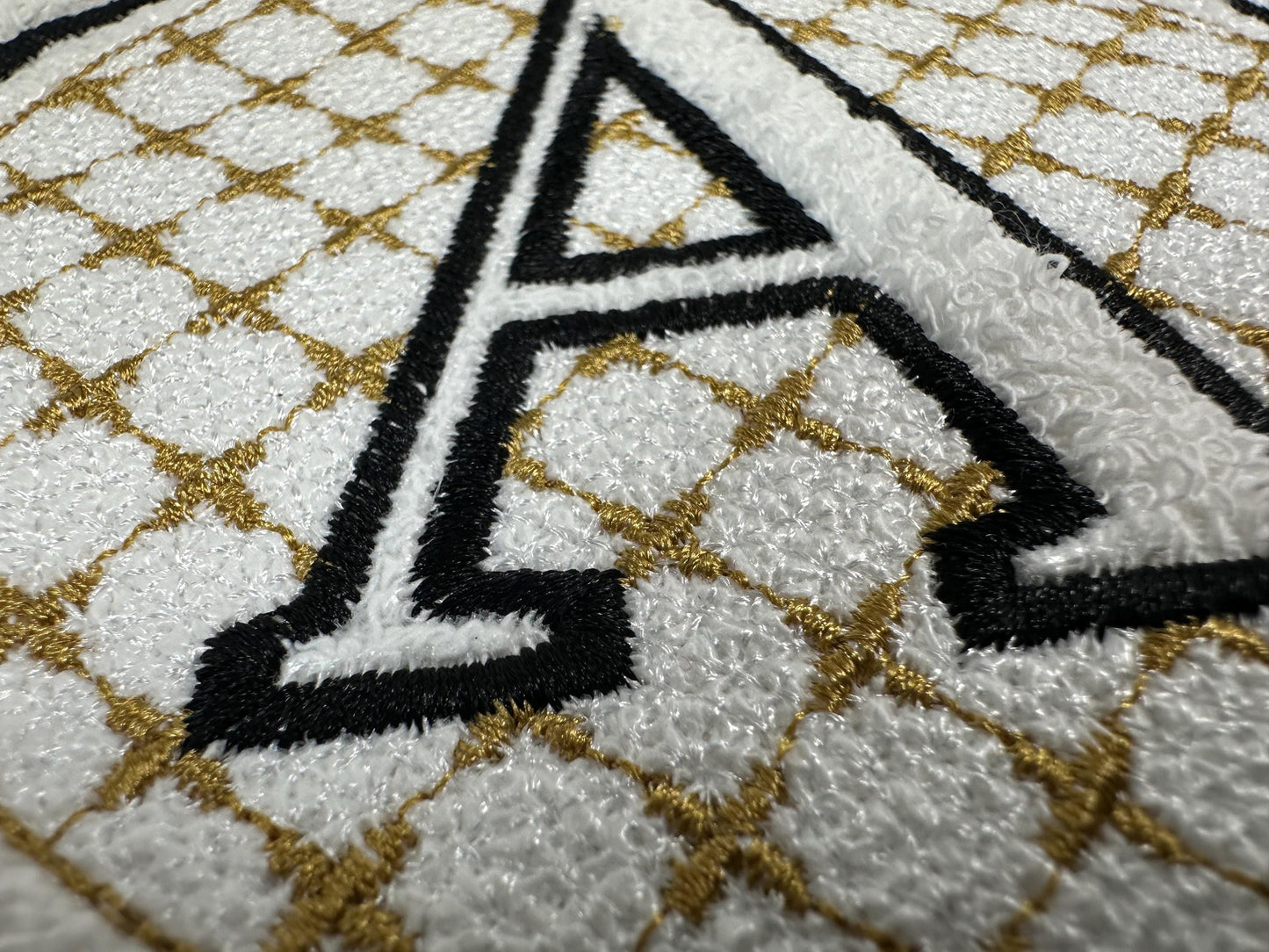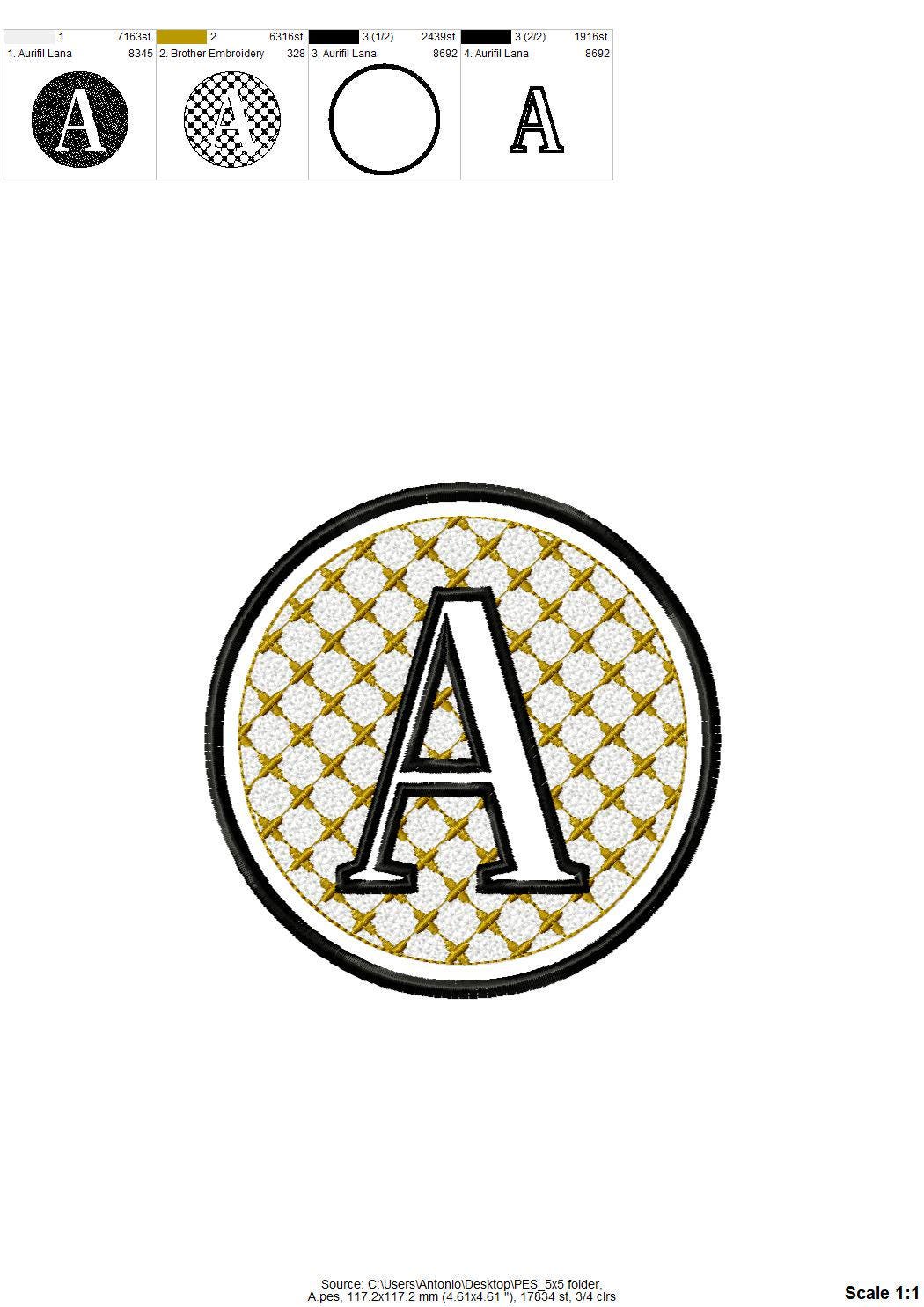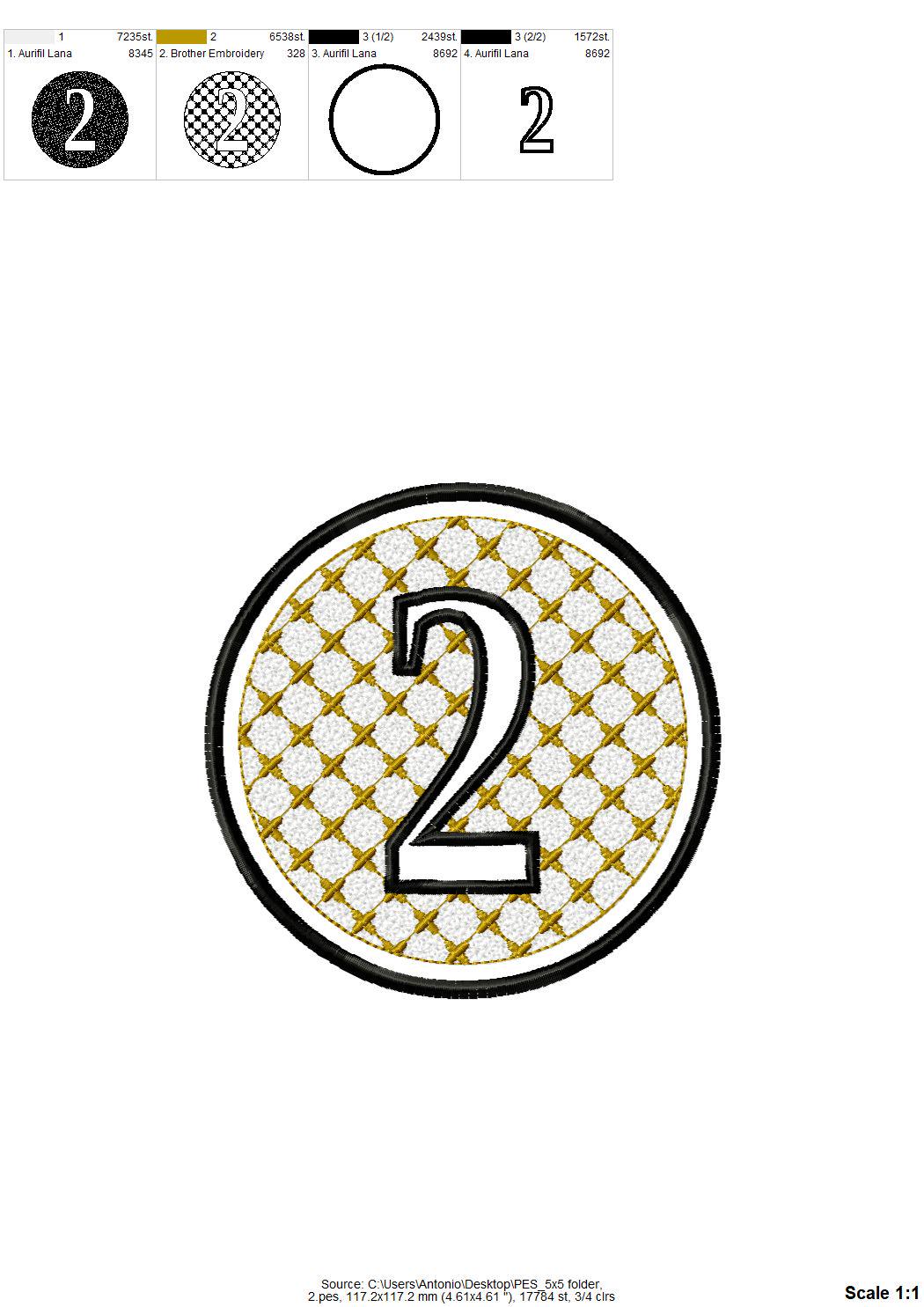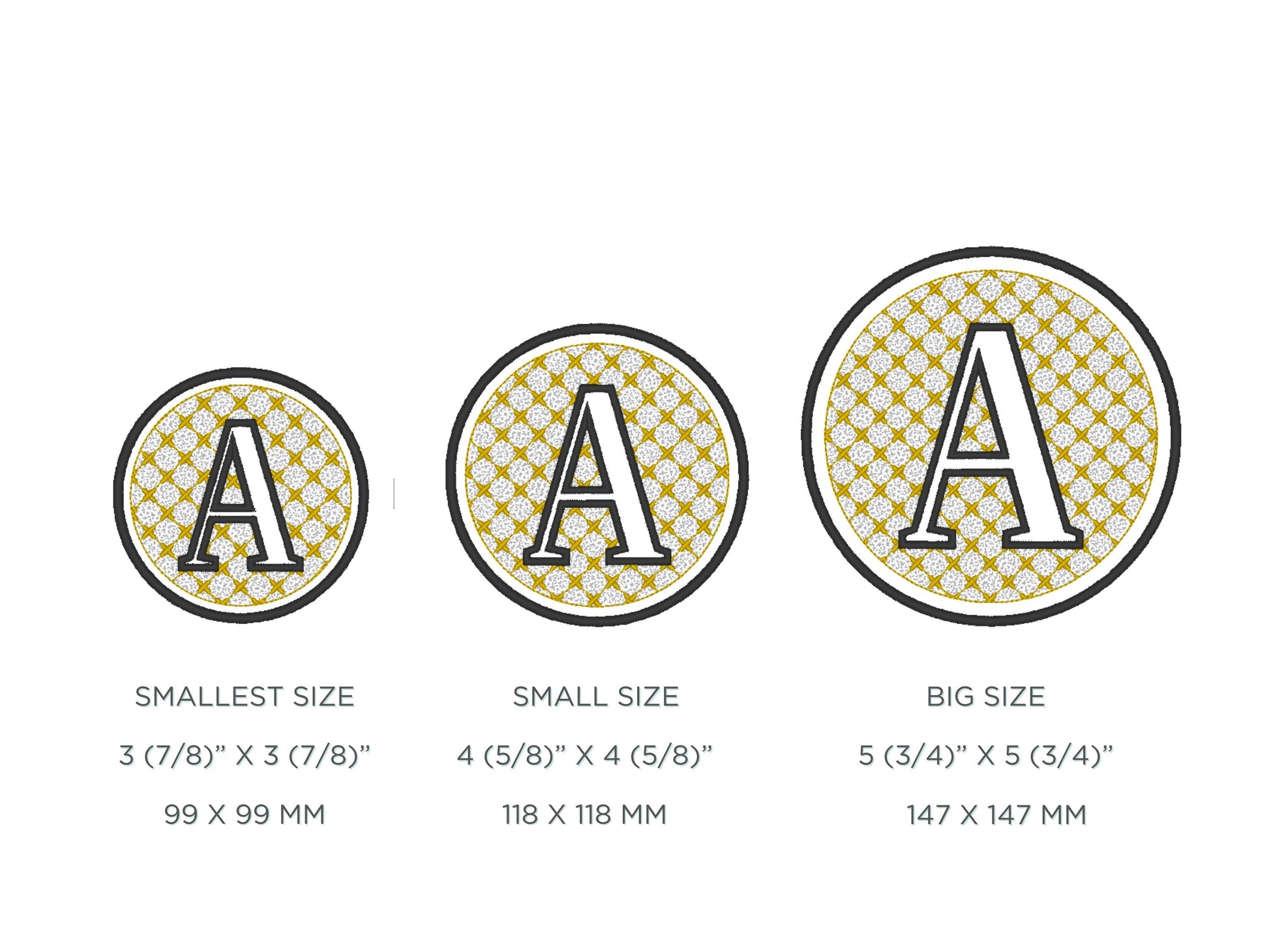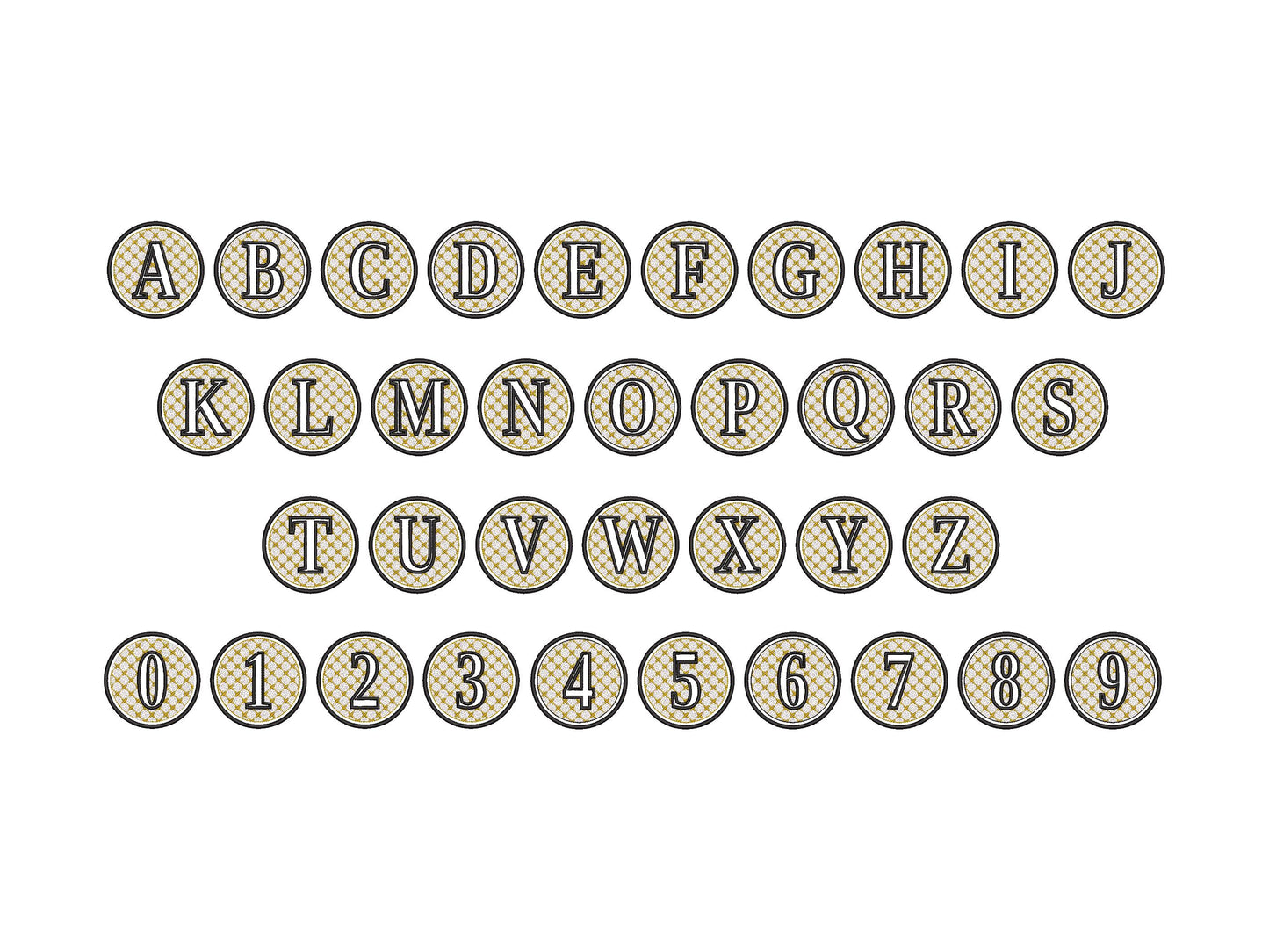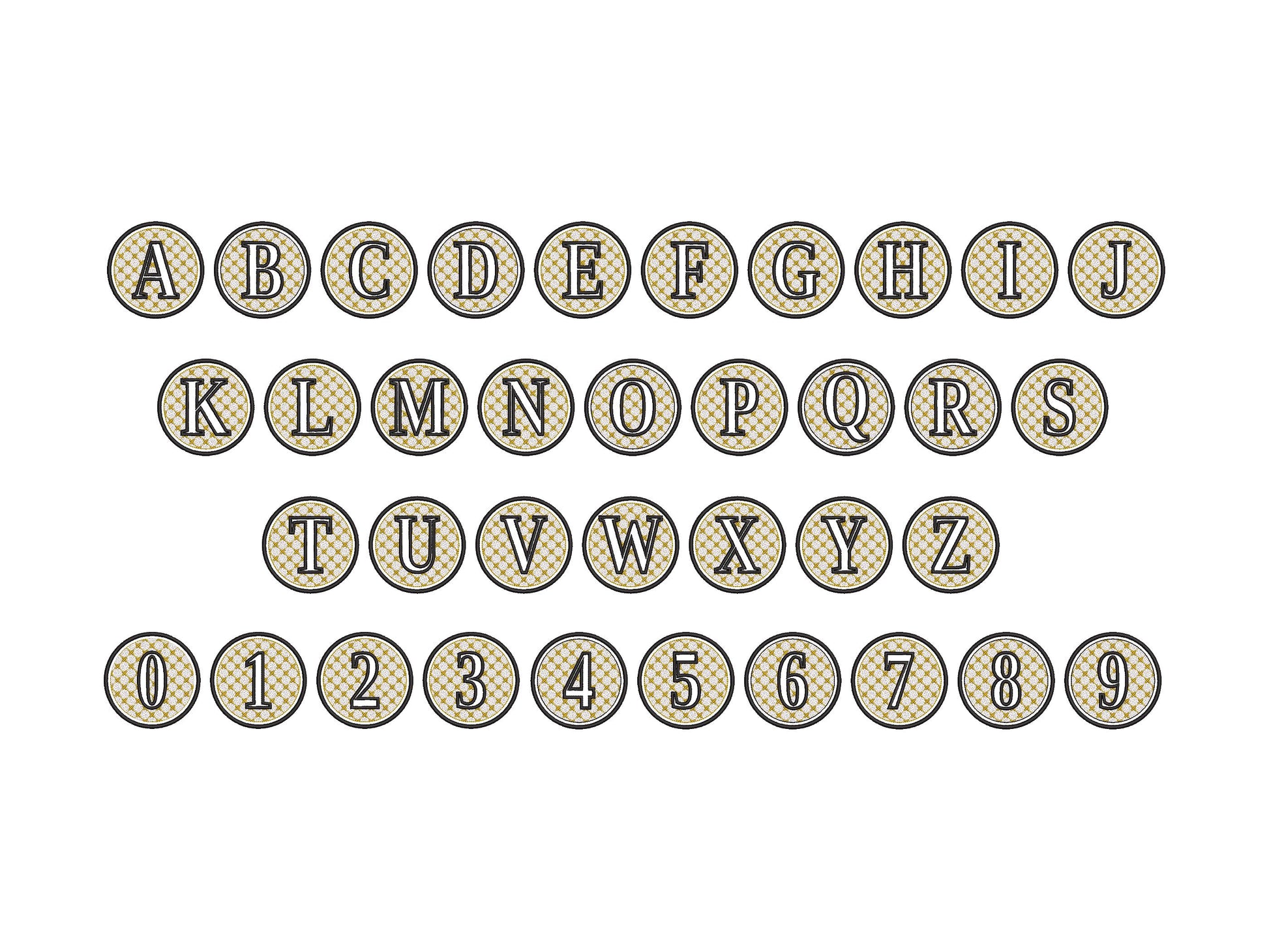
Embossed Classy Circle Monogram A-Z
All 26 letters, A to Z, and numbers 0 to 9 in three sizes: 4, 4.5 and 6 inches. The embossed look presses into the terry pile for a raised initial.
- Classy embossed circle monogram
- Letters A-Z, numbers 0-9
- 3 sizes: 4, 4.5 and 6 in